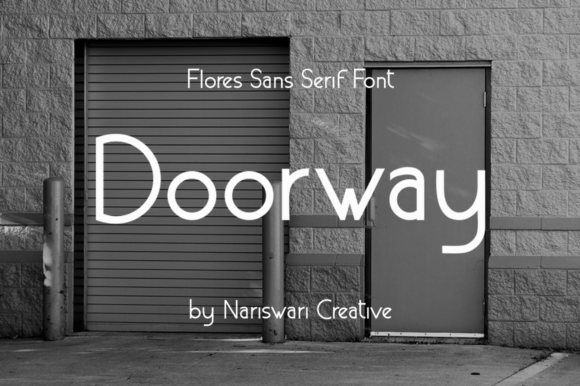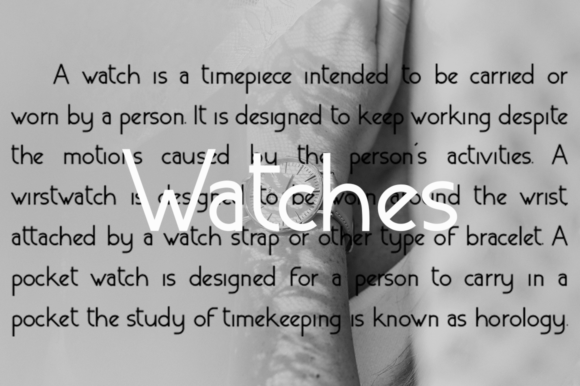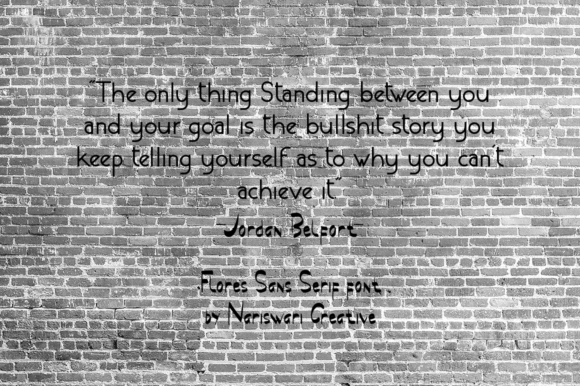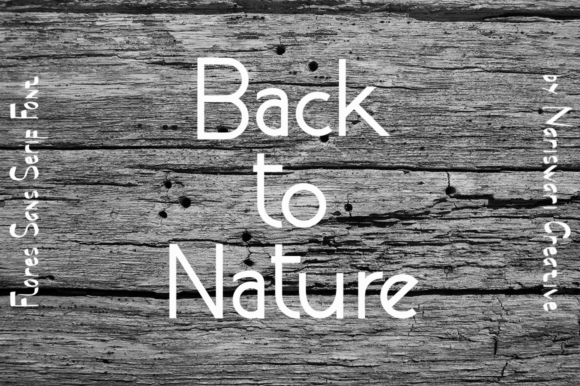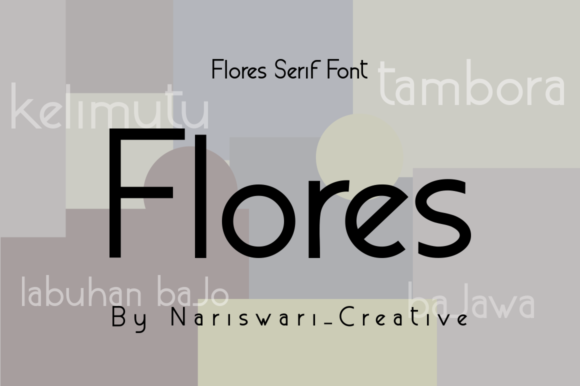
Introducing Flores Font: A Simple yet Stunning Sans Serif Typeface
Are you a designer or crafter looking for a font that exudes elegance and simplicity? Look no further than Flores Font, a beautiful sans serif typeface that is perfect for both formal and non-formal designs. In this article, we’ll dive into the world of Flores Font, exploring its features, benefits, and uses.
What is Flores Font?
Flores Font is a simple sans serif font that boasts a neat and beautiful arrangement of letters. Its clean lines, precise curves, and balanced spacing make it a versatile typeface that can be used in a wide range of design projects. Whether you’re creating a logo, brochure, or website, Flores Font is sure to make a lasting impression.
Key Features of Flores Font
- Simple and Elegant Design: Flores Font features a straightforward yet sophisticated design that makes it perfect for designs that require a touch of elegance.
- Neat and Beautiful Arrangement of Letters: The font’s letters are carefully crafted to ensure a harmonious and balanced look, making it ideal for body text and headings.
- Sans Serif Style: Flores Font’s sans serif style gives it a modern and clean look that works well in both digital and print designs.
- Highly Versatile: This font can be used in a variety of design projects, from formal documents to creative crafts.
Benefits of Using Flores Font
So, why should you choose Flores Font for your design projects? Here are just a few benefits of using this stunning typeface:
- Enhances Readability: Flores Font’s clear and simple design makes it easy to read, even at small font sizes.
- Boosts Visual Appeal: The font’s elegant and balanced design adds a touch of sophistication to any design project.
- Works Well in Multiple Contexts: Flores Font is suitable for use in a wide range of design projects, from formal reports to creative blogs.
- Easy to Pair with Other Fonts: This font’s neutral design makes it easy to pair with other fonts, allowing you to create unique and harmonious typography combinations.
Using Flores Font in Design Projects
So, how can you use Flores Font in your design projects? Here are a few ideas to get you started:
- Logos and Branding: Flores Font’s simple yet elegant design makes it perfect for logos, business cards, and other branding materials.
- Print Materials: Use Flores Font in brochures, flyers, posters, and other print materials to add a touch of sophistication.
- Web Design: This font’s clean and modern design works well in website designs, making it ideal for headings, body text, and UI elements.
- Crafts and DIY Projects: Flores Font can also be used in craft projects, such as handmade cards, scrapbooking, and other DIY endeavors.
| Font Name | Flores Font |
| Author | Nariswari Creative |
In conclusion, Flores Font is a stunning sans serif typeface that offers a unique combination of simplicity, elegance, and versatility. Its neat and beautiful arrangement of letters makes it perfect for both formal and non-formal designs, while its highly legible design ensures that your text is easy to read. Whether you’re a designer, crafter, or DIY enthusiast, Flores Font is a great addition to your typography collection.